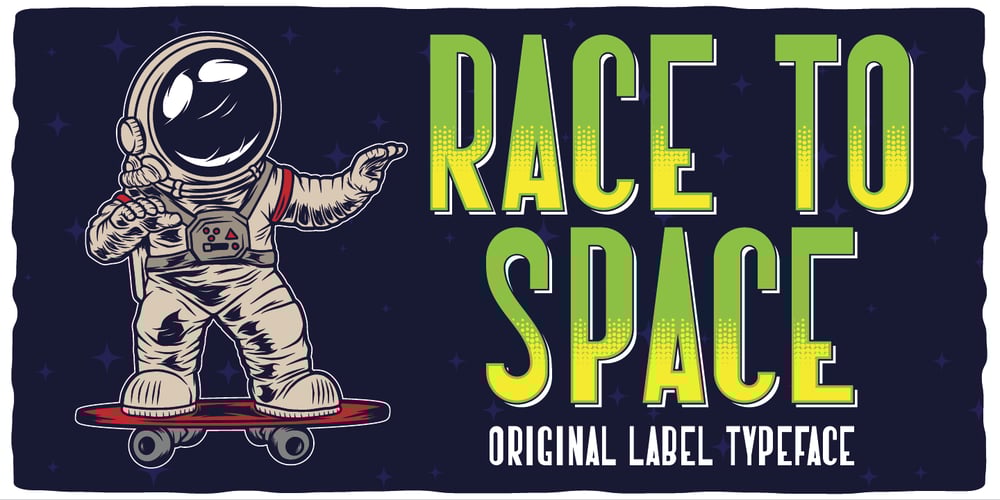
Race To Space Font Family was designed by Oleg Voznyy and published by Vozzy. Race To Space contains 7 styles and family package options. Introducing a vintage look label font named Race To Space. All available characters you can see at the screenshot. This font have 7 styles – Regular, Shadow, Texture, Shadow FX, Texture FX, Full and Aged. This funny style font will good viewed on any retro design like poster, t-shirt, label, logo etc.